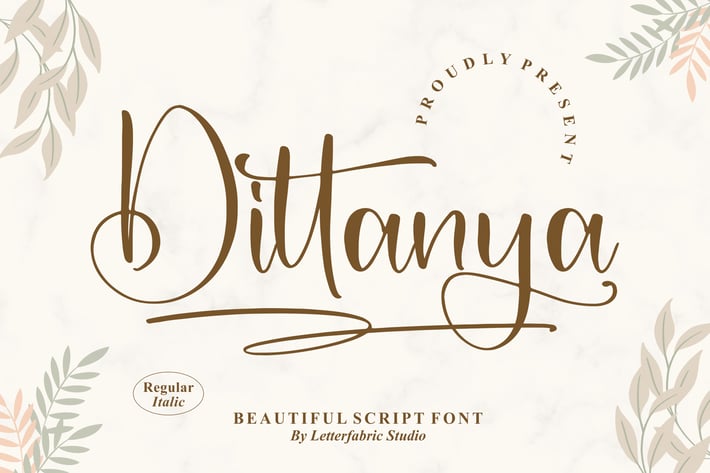
Dittanya Beautiful Script Font
Dittanya is a beautifully handcrafted script font that radiates warmth, charm, and elegance. With its smooth curves and graceful swashes, this font brings a refined touch to any design, perfectly balancing classic calligraphy with a modern flair.
Stylish handwritten script with elegant curves
Comes with Regular and Italic styles
Perfect legibility for both print and digital projects
Elegant ligatures for a natural flow
Wedding and event invitations
Save the date cards and thank-you notes
Logo design and personal branding
Editorial and lifestyle projects
* Product packaging and stationery
Soft, graceful, and full of charm — Dittanya adds a touch of timeless beauty to your words.